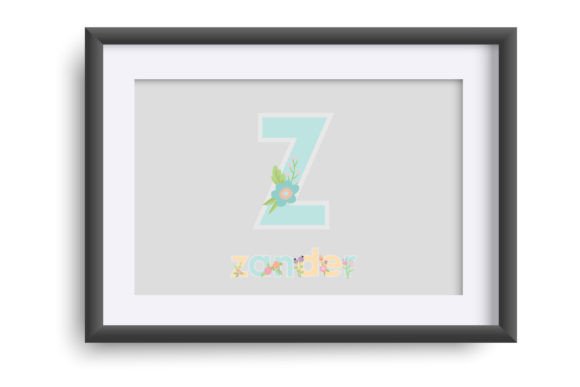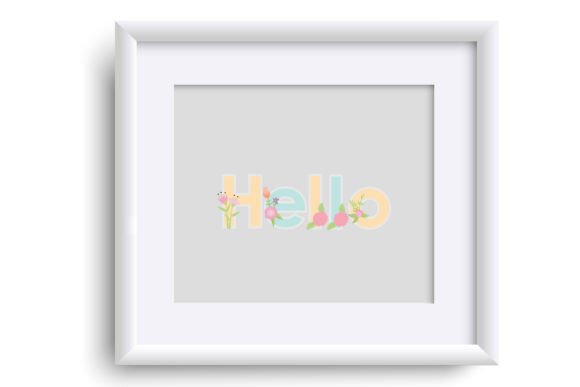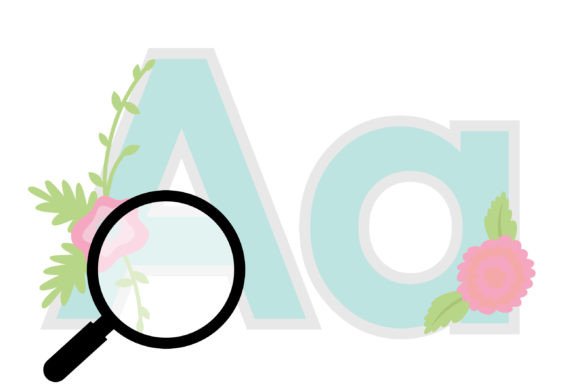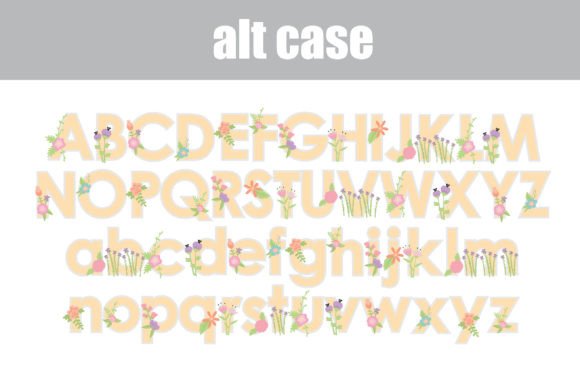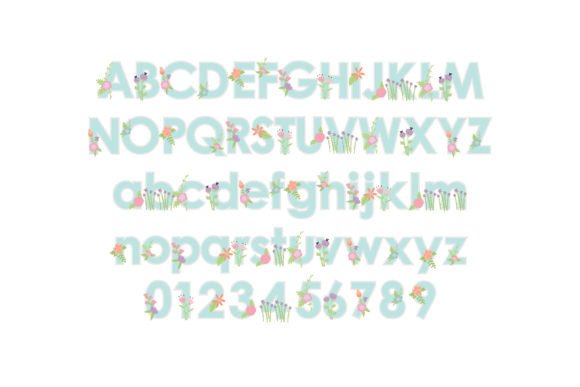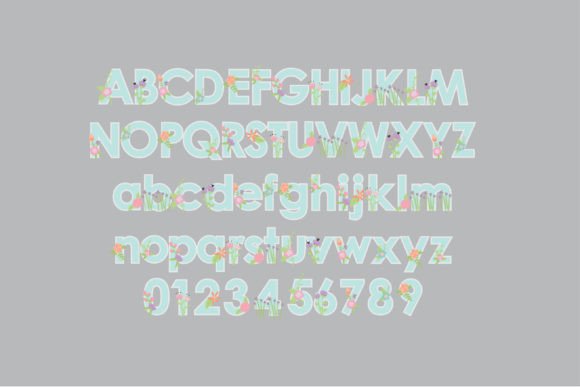
Introduction to Just a Spring Note Font
Have you ever been working on a creative project, pouring your heart and soul into it, only to feel like something is missing? The right font can make all the difference, and that’s where Just a Spring Note Font comes in. This stunning full-color font features beautiful florals on a sans serif base, adding a touch of elegance and sophistication to any design.
As a designer, you know how valuable a high-quality design resource like Just a Spring Note Font can be. With its vibrant colors and delicate details, this font is perfect for adding a personal touch to your projects. Whether you’re working on a logo, invitation, or social media graphics, Just a Spring Note Font is sure to make your designs stand out.
Key Features of Just a Spring Note Font
- Unique Hand-Drawn Design: The Just a Spring Note Font features a beautiful, hand-drawn design that adds a personal touch to any creative project.
- Large Character Set: The font includes a large character set, including uppercase and lowercase letters, numbers, and punctuation marks, making it suitable for a wide range of applications.
Honest Review: Just a Spring Note Font
I recently came across the Just a Spring Note Font, and I must say it’s a lovely addition to any design project. The high-quality design makes it perfect for a creative project that requires a touch of elegance.
- Beautiful, high-quality design that adds a touch of elegance to any project
- May not be suitable for projects that require a bold, statement font
Overall, I’m impressed with the Just a Spring Note Font. It’s a great resource for designers who want to add a touch of sophistication to their projects. While it has some limitations, it’s a high-quality design that’s perfect for a free download.
How to Use Just a Spring Note Font
To get the most out of Just a Spring Note Font, use it for creative projects that require a high level of detail and precision. The font’s transparent background makes it perfect for designs that involve layering and transparency. Additionally, use it as a design resource for free download to add a touch of elegance to your projects.
Just a Spring Note Font is perfect for a variety of design projects, including invitations, greeting cards, and digital art. Its high-quality design and transparent background make it ideal for creative projects that require a touch of sophistication and elegance.
What is the recommended usage for Just a Spring Note Font in a design project?
Just a Spring Note Font is a high-quality design resource that can be used for a variety of creative projects, including branding, packaging, and digital design. We recommend using the font in a clear and legible manner, and to combine it with other design elements to create a visually appealing design.